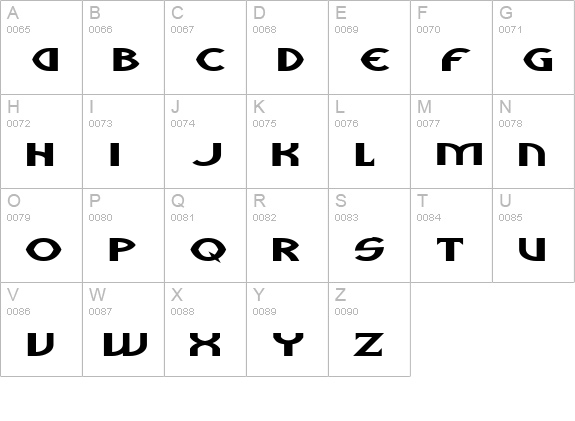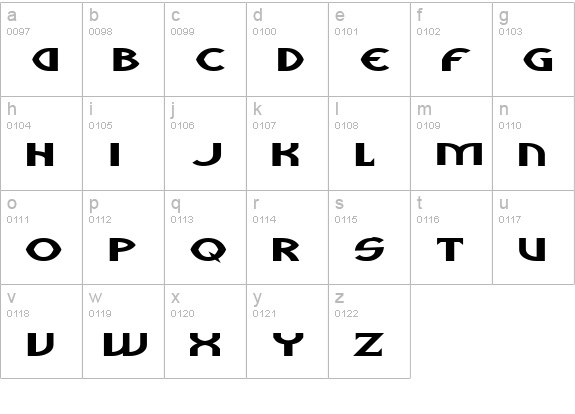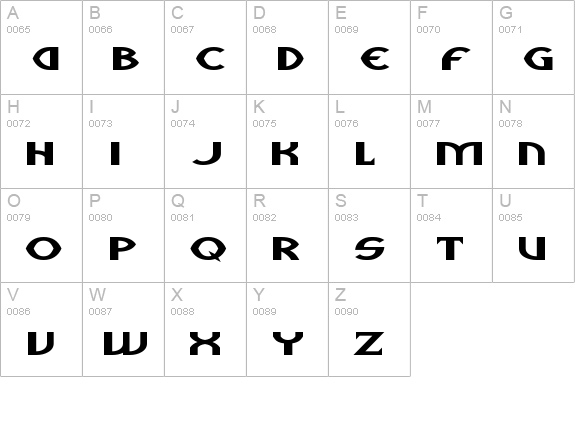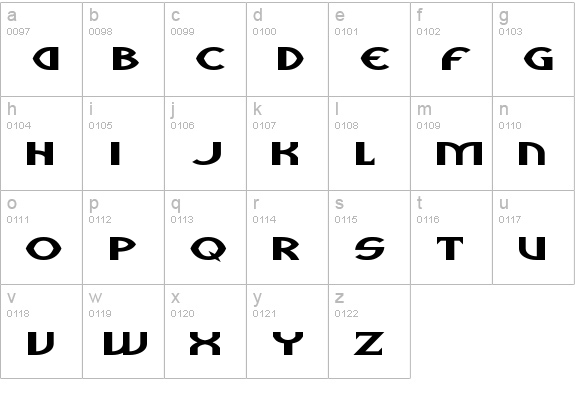
Aliens Font Details
The Aliens font is an otherworldly typeface that will transport your designs to a realm beyond the stars. With its mysterious and futuristic appearance, this font is perfect for creating eye-catching headlines, posters, and branding materials that are out of this world. The unique shapes and glyphs of the Aliens font will add a touch of extraterrestrial charm to any project. Best of all, the Aliens font is available for free download at FontsMarket.com. So, whether you're a seasoned designer looking to add a new dimension to your work or a novice exploring the possibilities of typography, this font is a must-have in your collection. Don't miss out on the chance to bring a touch of intergalactic flair to your next project with the Aliens font - get it now for free at FontsMarket.com!